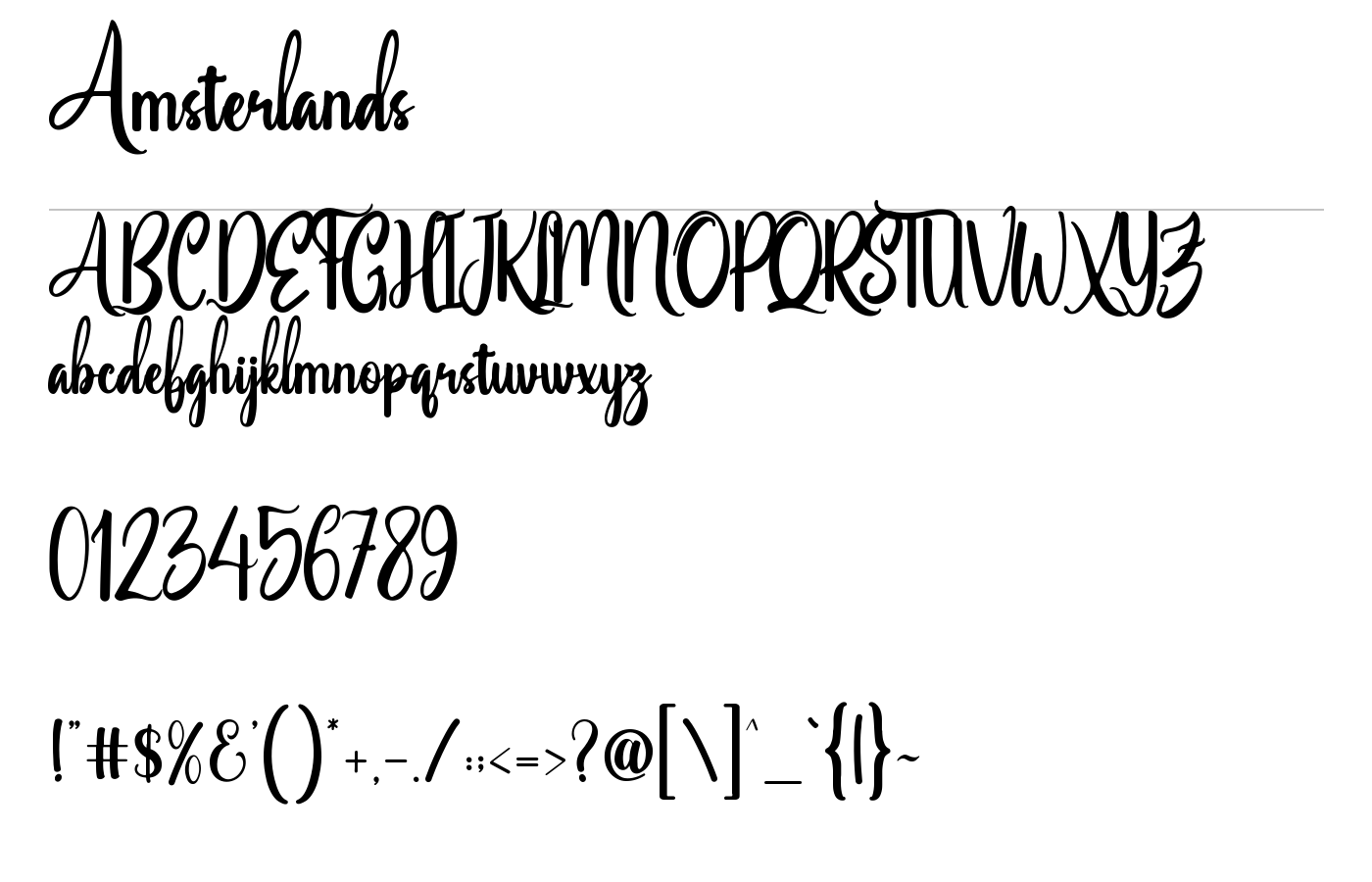
Amsterlands is a stylish script font characterized by its tall, slender letterforms and smooth, fluid strokes that convey elegance and charm. Its moderate contrast and playful curves make it ideal for brands and designs seeking a personal, artistic touch, such as invitations, logos, and fashion-related materials. This font shines in headlines and decorative uses where a graceful, handwritten feel adds warmth and sophistication.
Amsterlands Font
About Amsterlands Font